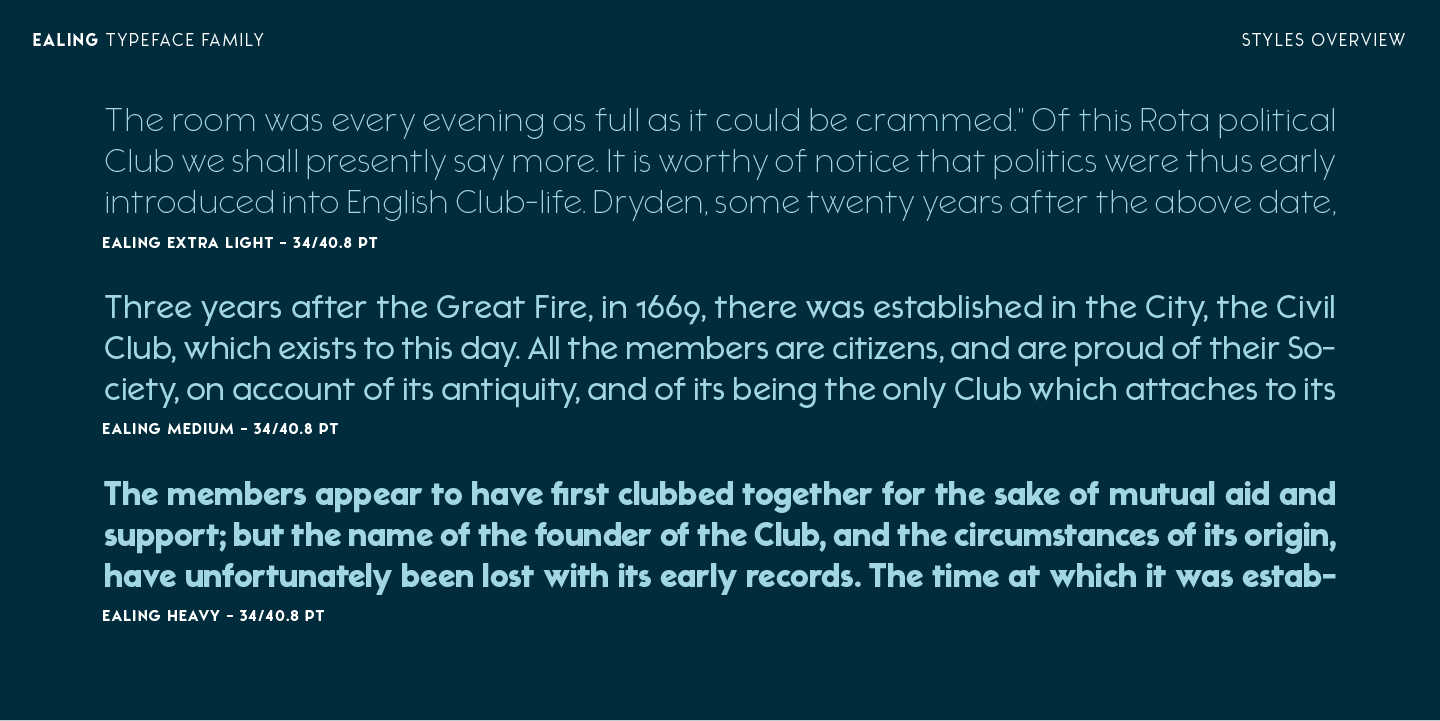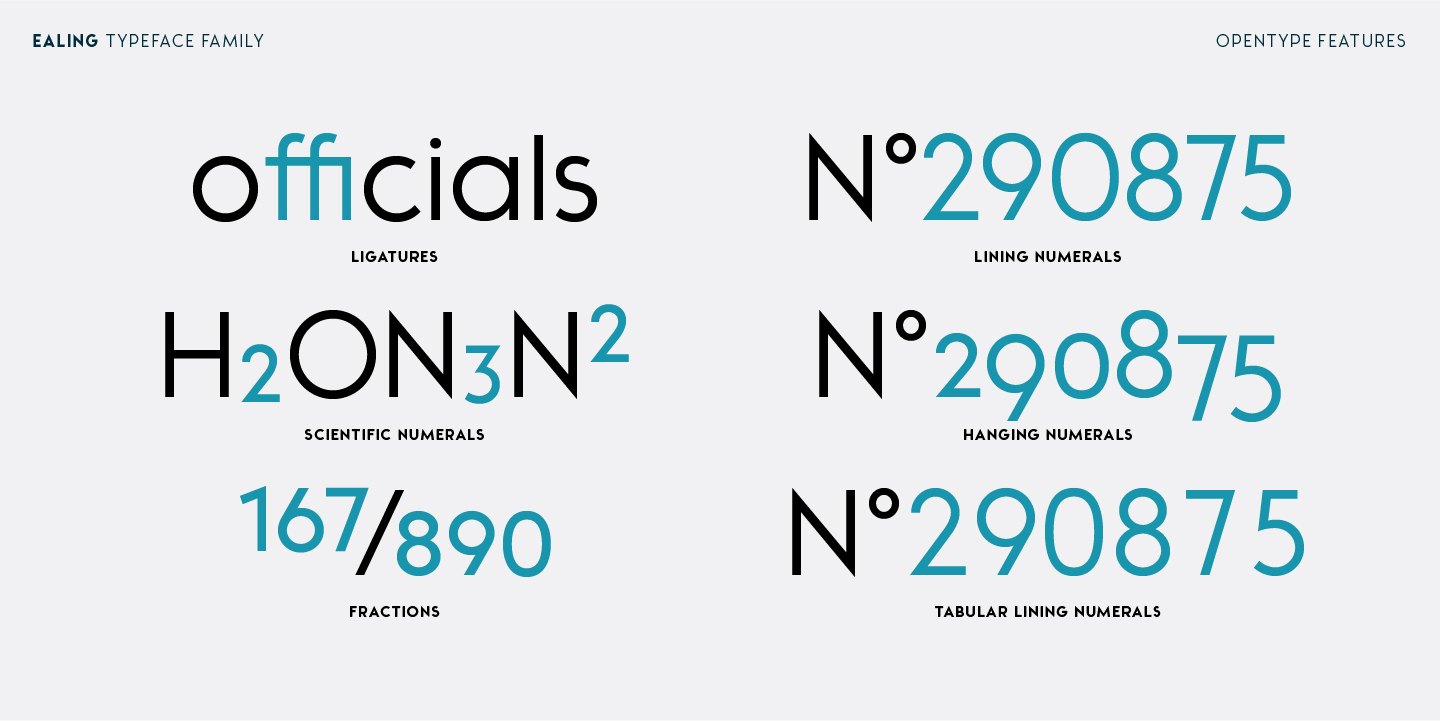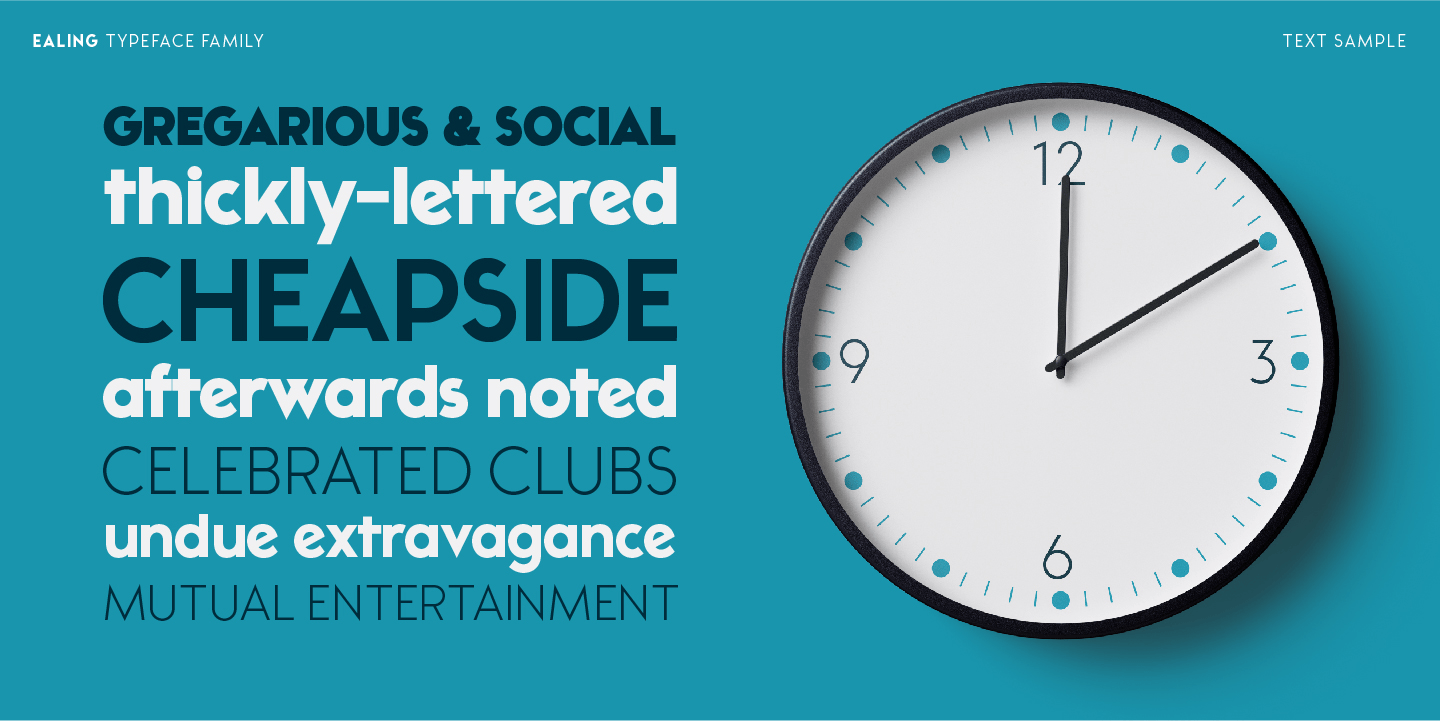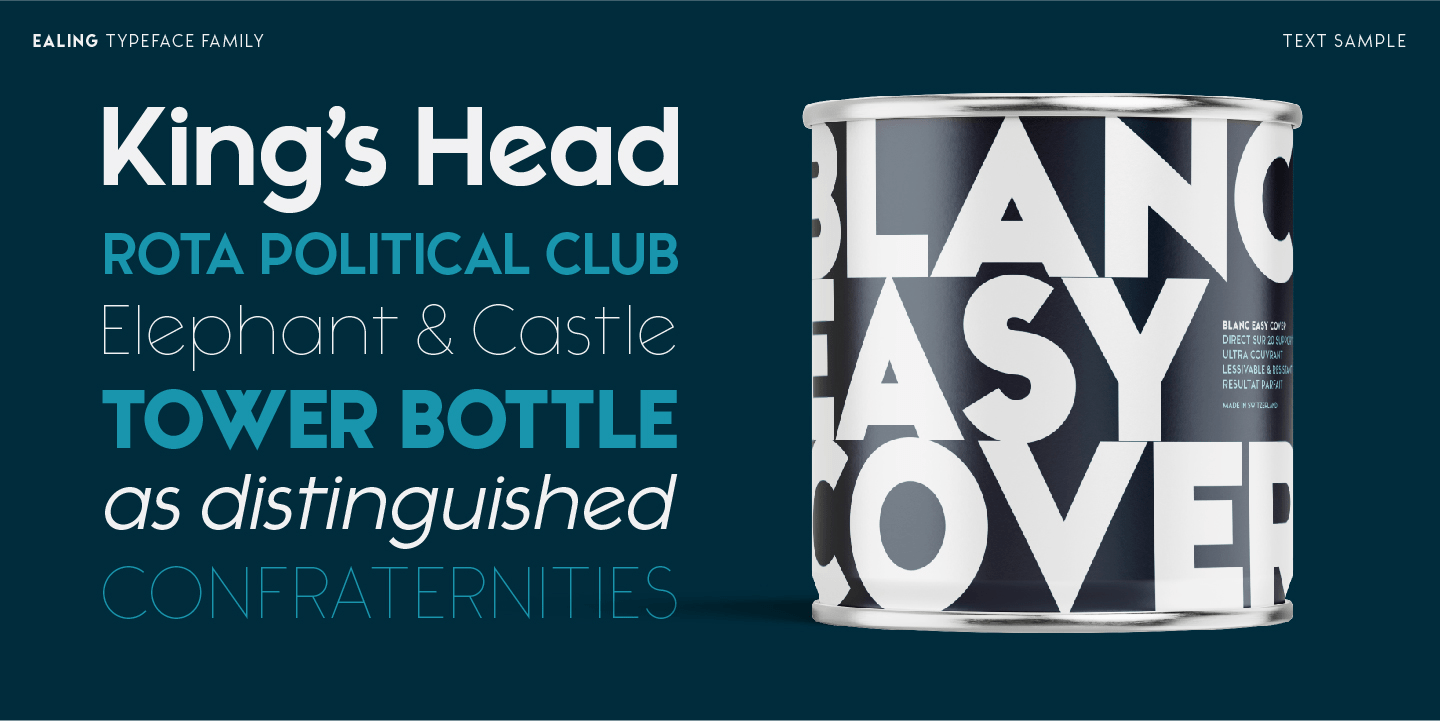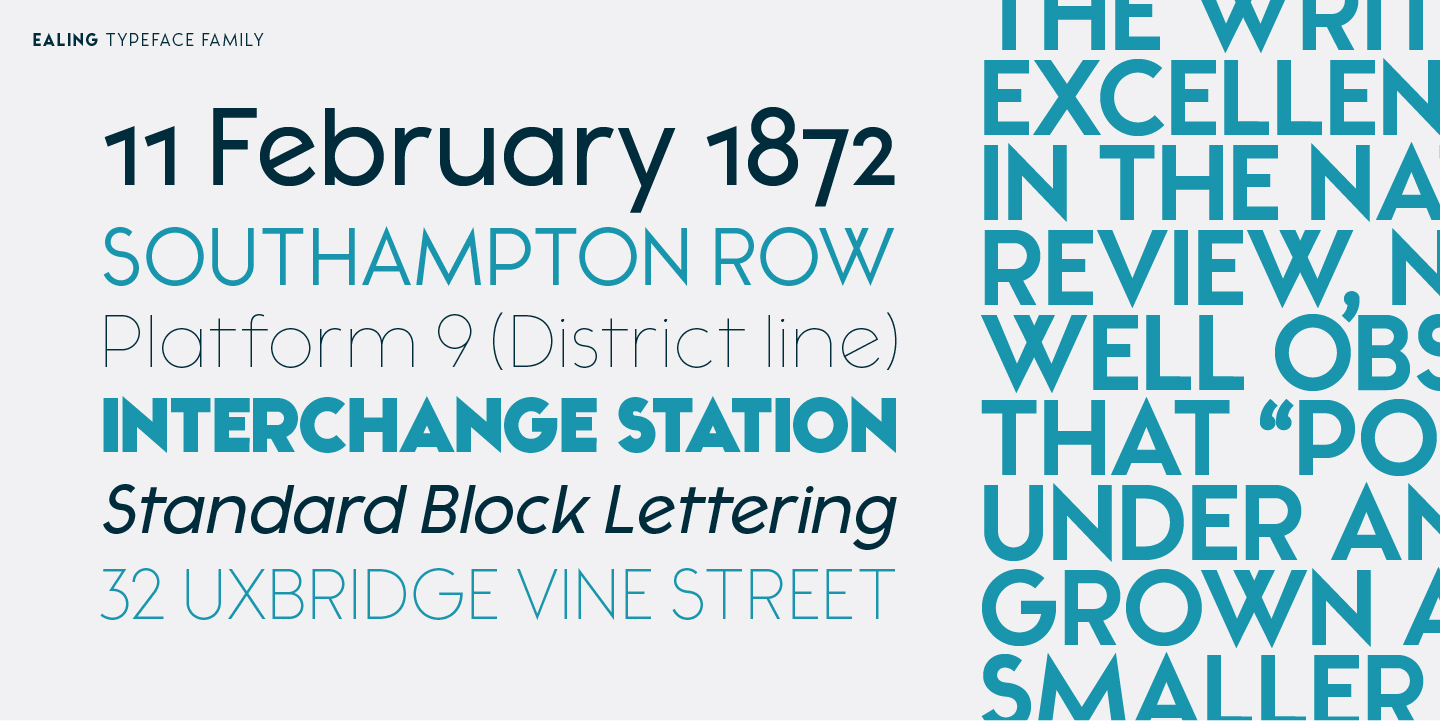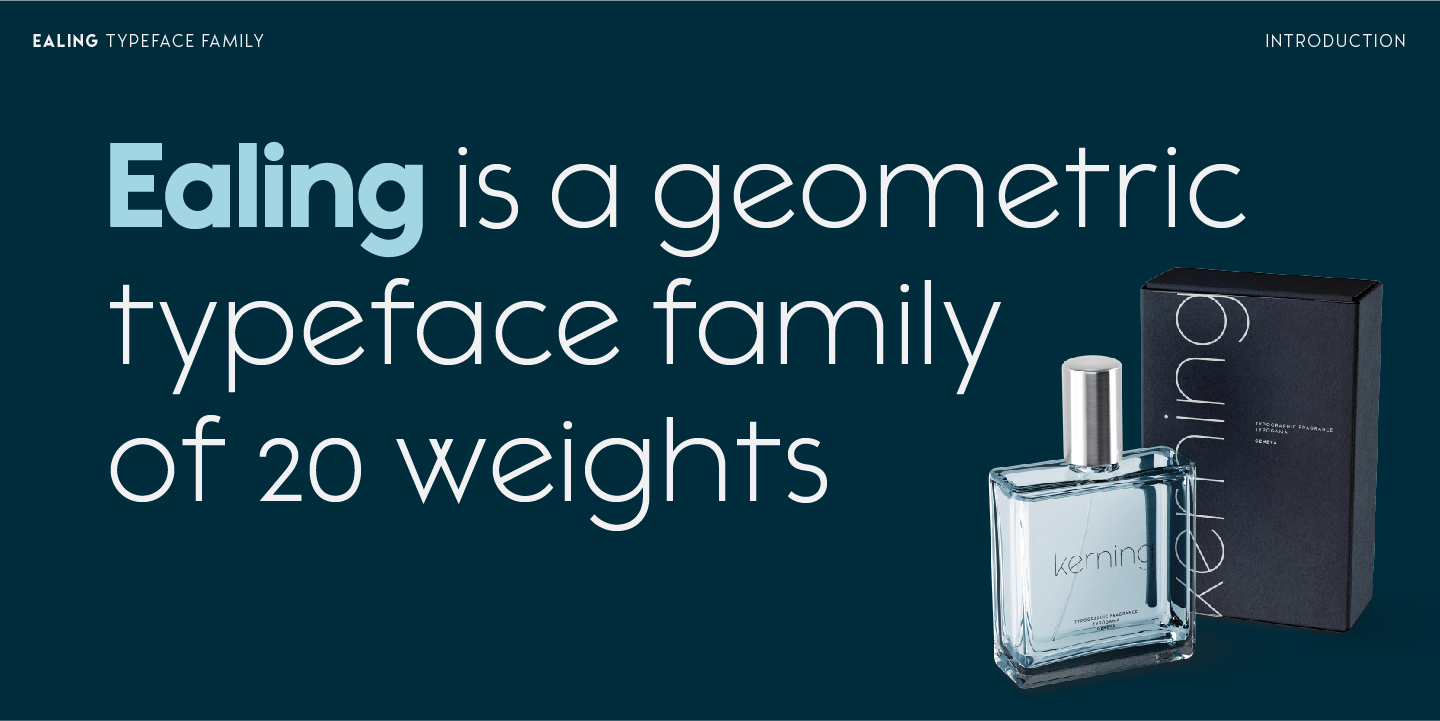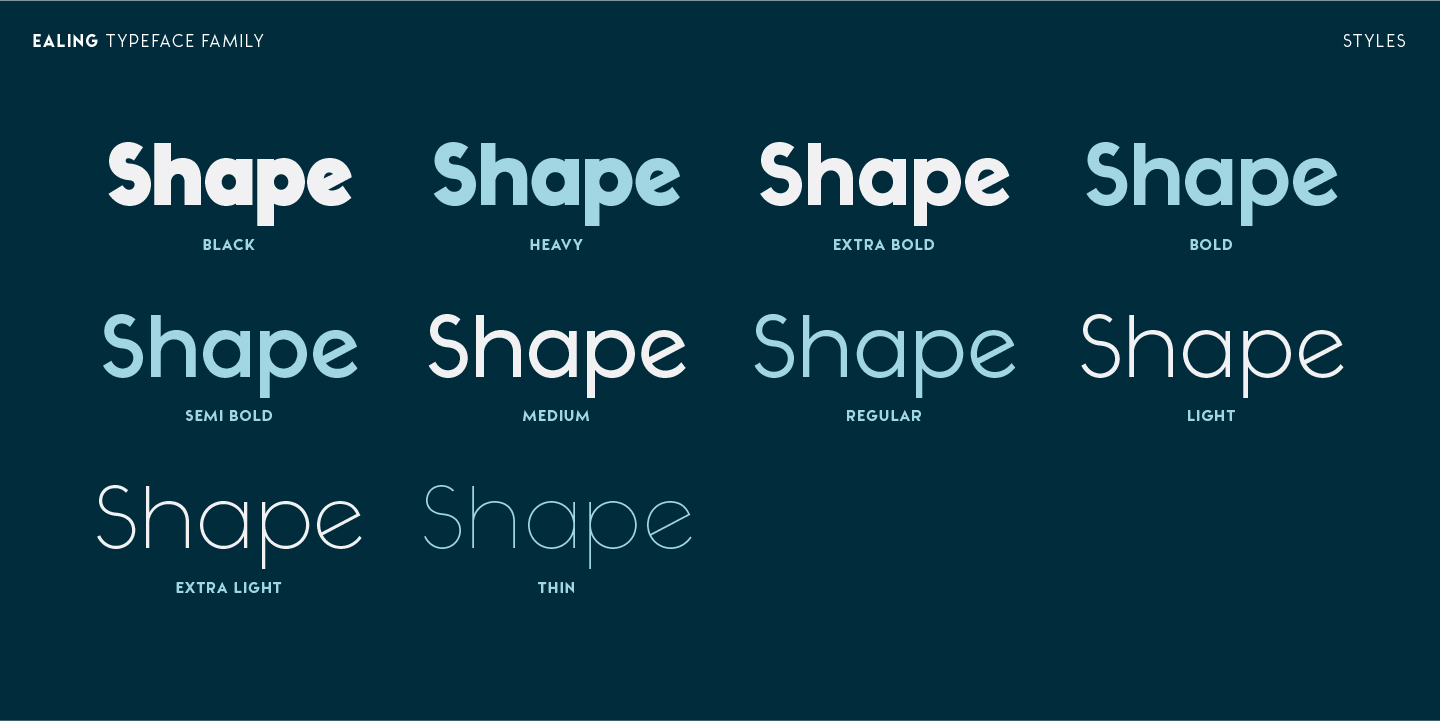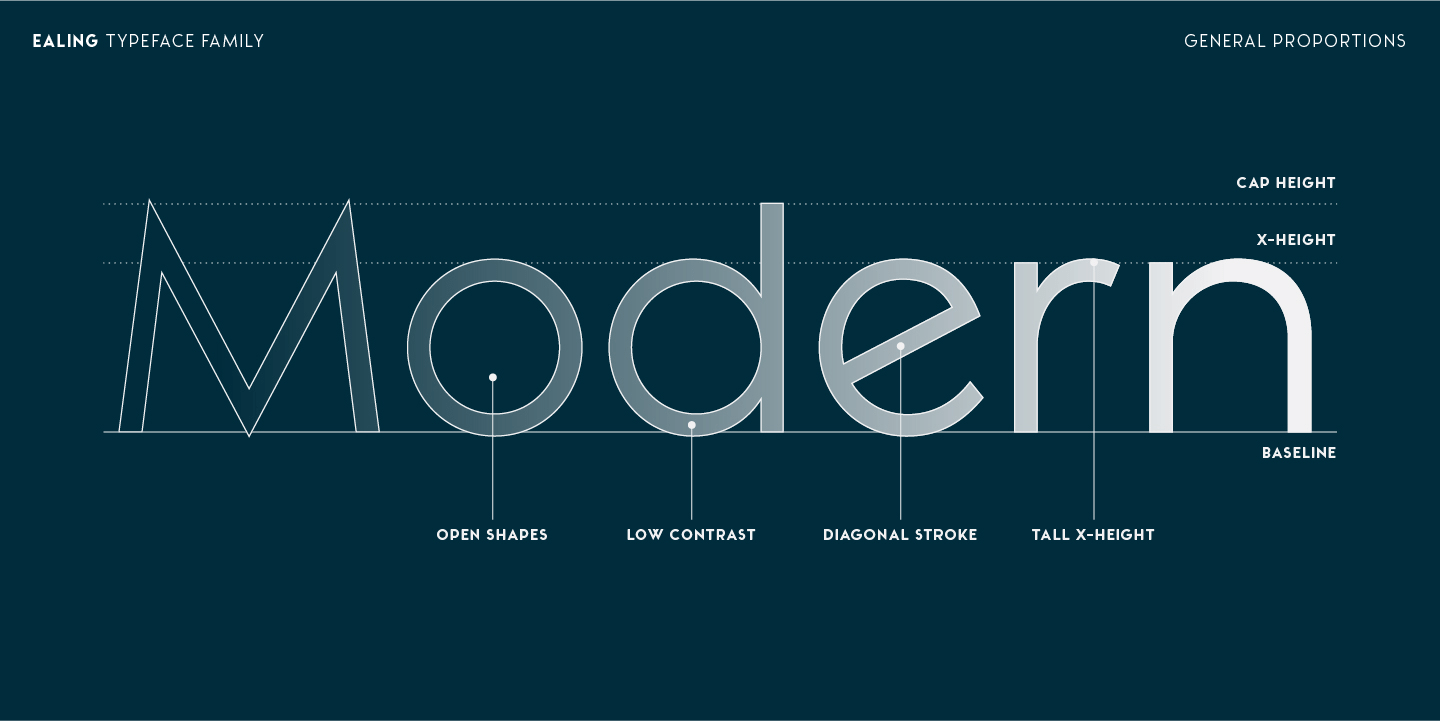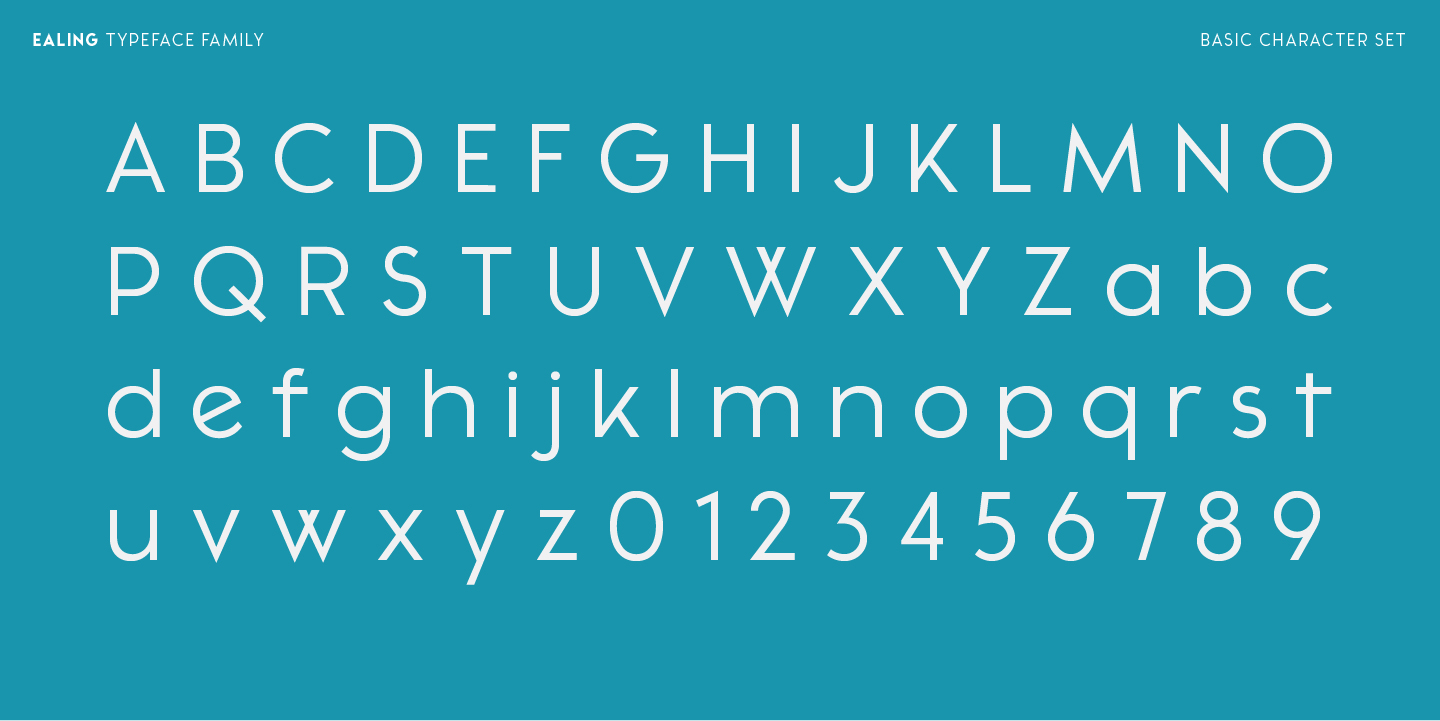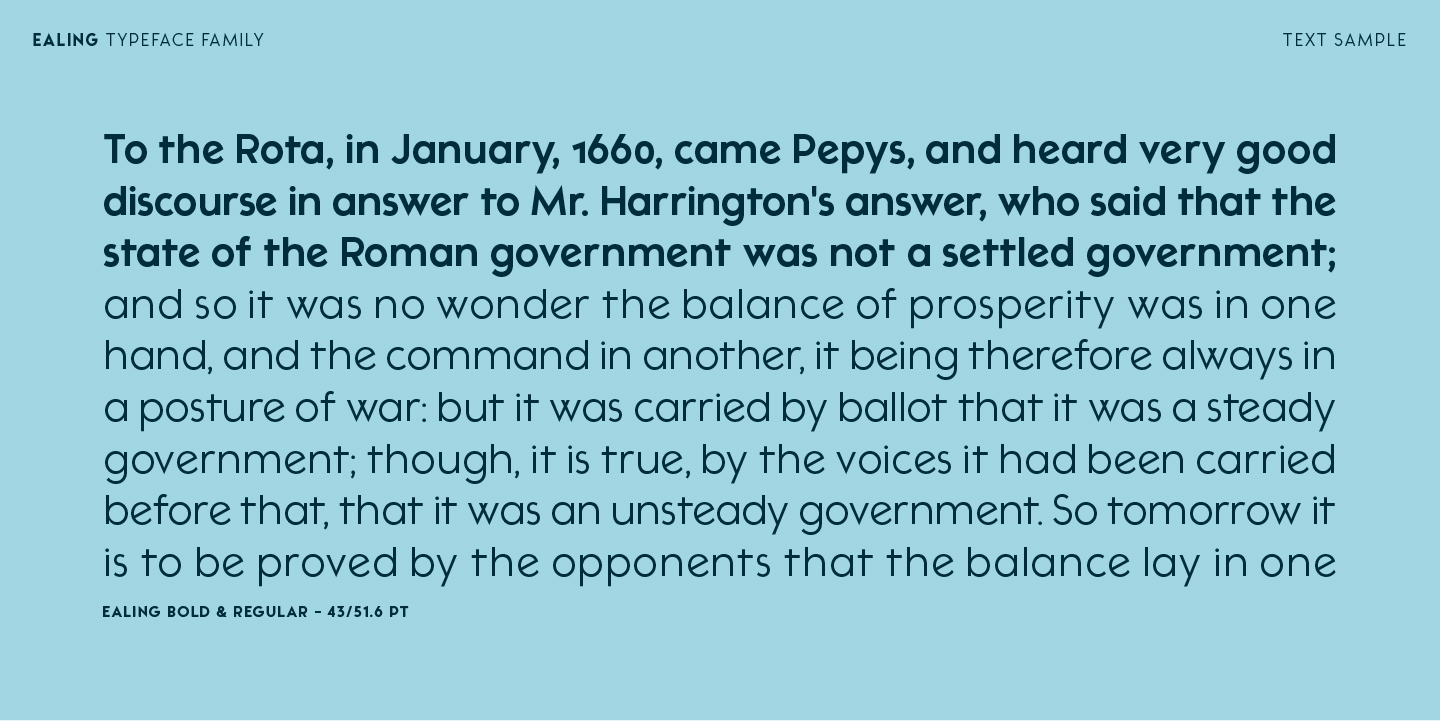
Ealing
Font Family by Typogama
Ealing is a geometric typeface that was inspired by the design ideas of the early modernists. With a near monolinear stroke and open, solid shapes, the family ranges from a fine and delicate Thin weight all the way through to a dark, bold weight to offer a versatile and flexible tool. With its focus on form, it is best suited for display or large settings were its constructed shape will shine.
With twenty weights or a single variable font, Ealing covers the expanded latin character set to cover most latin based languages. The family is further enhanced by a range of Opentype features, that include ligatures, numeral styles and fractions and will add further choice to any layout.